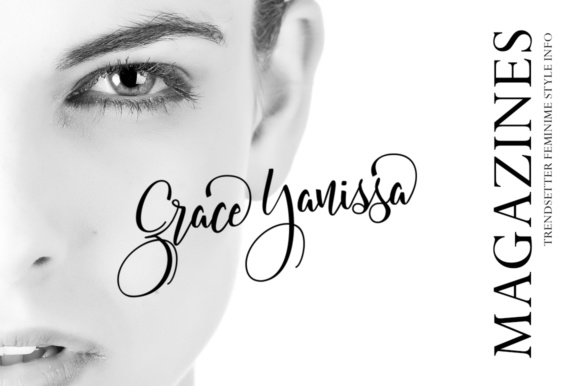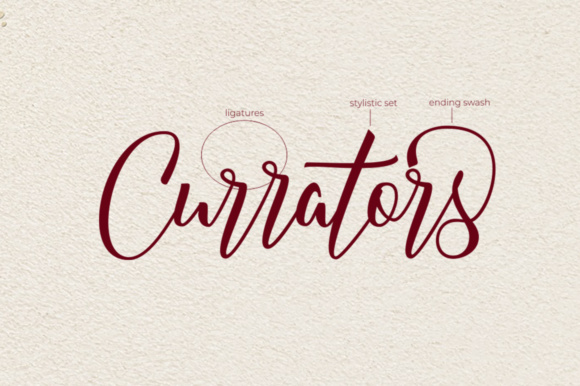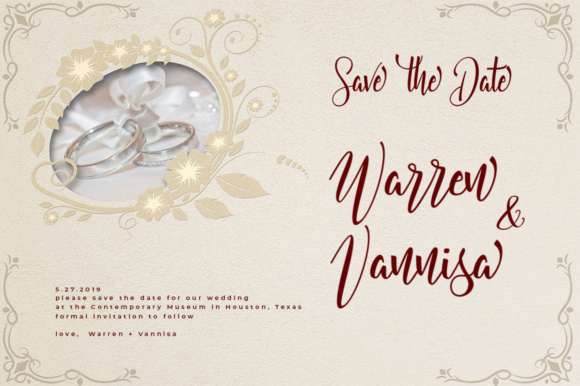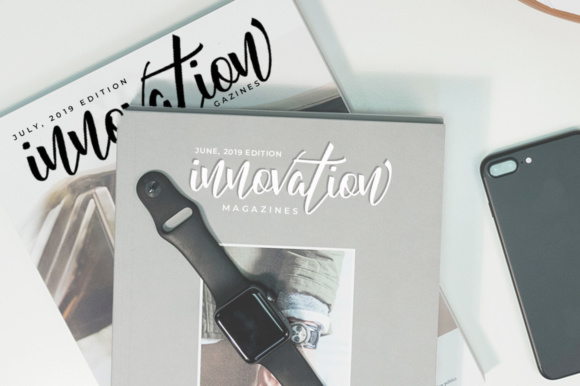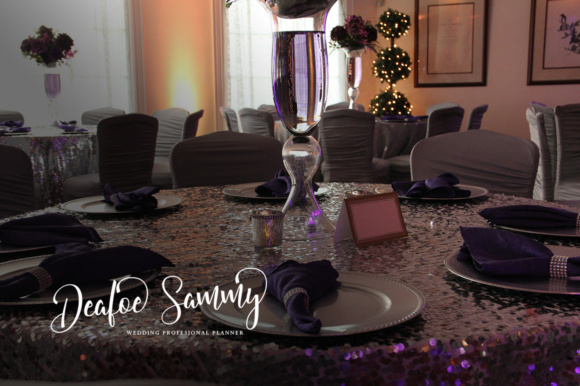
Currators Script Font
About Currators Script Font
The Currators is a handwritten font with a modern twist. It’s made for vintage logos, fashion labels, custom cards headers, badges, food packaging designs, and every other design that need a a lot of fancy letter connections.